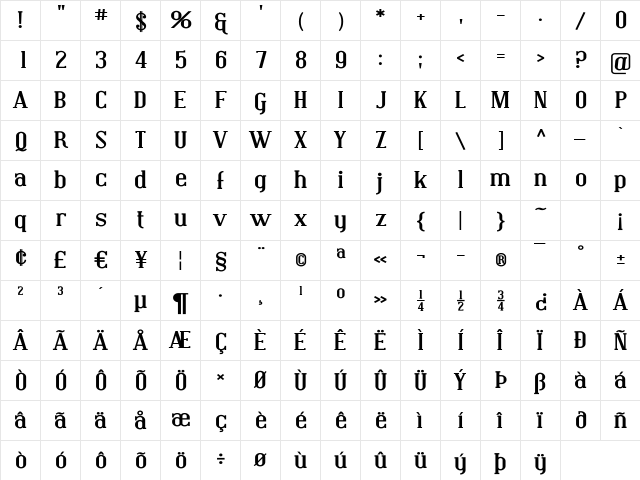
Covington Exp Bold Free Font
Covington Exp Bold
Designer: Derek Vogelpohl
Design Context for Covington Exp
Covington Exp is a composed and adaptable typeface that performs quietly and consistently across a wide range of design contexts. Its bold stroke weight gives it real presence on the page.